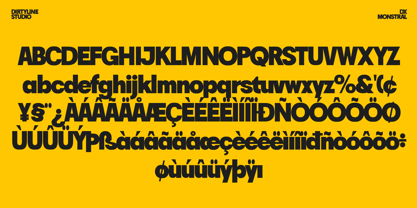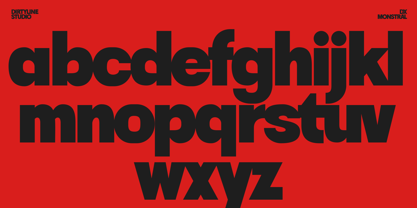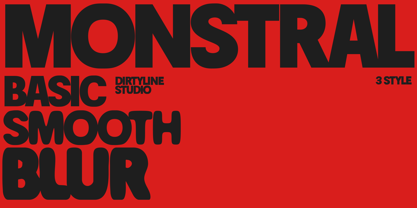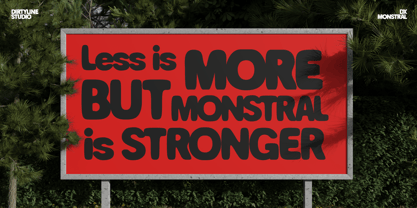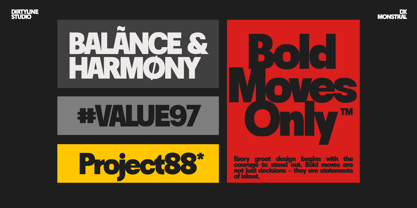
Dx Monstral
by Dirtyline Studio
The Dx Monstral Font Family was designed by Hendra Maulia and published by Dirtyline Studio. Dx Monstral contains 3 styles and family package options. More about this family
Monstral is a bold, playful, and expressive display font designed by Dirtyline Studio. Inspired by 70s retro aesthetics and modern graphic design, Monstral combines soft curves, chunky proportions, and smooth letterforms to bring personality and warmth into any project. This typeface comes in three distinctive styles Basic, Smooth, and Blur, allowing you to experiment with texture and tone while maintaining strong visual impact. Each style delivers a unique vibe, from clean and bold to dreamy and experimental, giving you endless creative flexibility. Font Features 3 Font Styles: Basic, Smooth, and Blur Bold and Rounded Letterforms Perfect for Posters, Logos, Album Covers, and Editorial Design Retro-inspired with a Modern Feel Why You’ll Love Monstral With its friendly curves and dynamic weight, Monstral captures attention effortlessly. The Basic version brings clarity and strength, Smooth adds a fluid touch, while Blur delivers a nostalgic, dreamy effect that’s perfect for experimental layouts and creative branding. Make your typography stand out with confidence — Monstral is more than a font, it’s a statement piece for bold creatives.